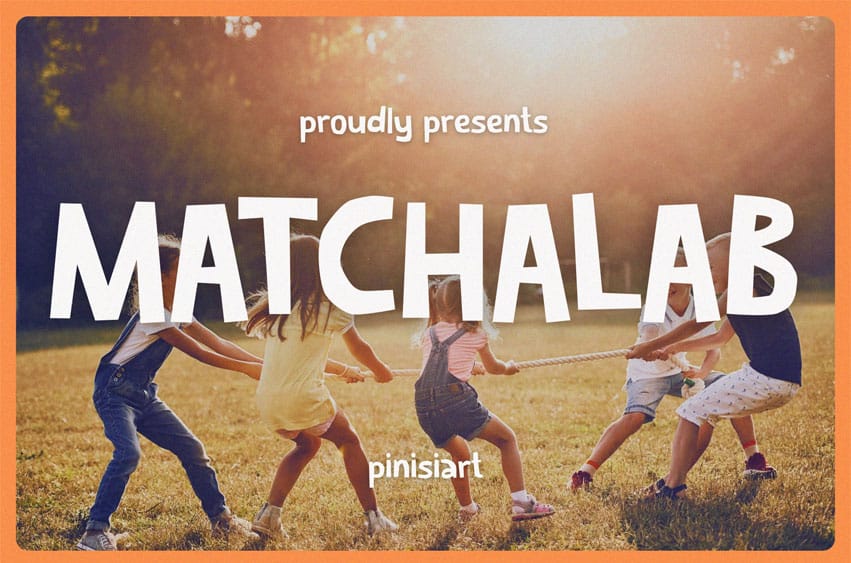
Matchalab Font is a playful handwritten display font designed to bring warmth and charm into your designs. With soft shapes, bouncy baselines, and organic curves, it feels alive, friendly, and approachable — like a perfect blend between creativity and comfort. The letters dance with a casual rhythm, making it ideal for Instagram posts, lifestyle branding, coffee shop menus, and kid-friendly visuals. Its natural, hand-drawn flow gives every project a personal touch that feels both authentic and joyful.
From cozy coffee branding to cheerful social media graphics or kids’ packaging, Matchalab makes every word smile. Its friendly tone builds emotional connection — perfect for creators, small business owners, and designers who want their visuals to feel genuine and inviting. Whether you’re designing a poster, vlog thumbnail, or playful product label, this font helps your message stand out with personality and warmth.
- Friendly Character Design: Soft, bouncy strokes that feel handwritten yet clean.
- Versatile Appeal: Works beautifully for logos, packaging, quotes, and social media.
- Natural Flow: Soft curves that add rhythm and approachability to any layout.
- Emotive Tone: Perfect for expressing creativity, joy, and authenticity in every project.
- Balanced Legibility: Easy to read in both headlines and short paragraphs.
Bring your designs to life with Matchalab — a font that radiates warmth and creativity in every curve. Whether you’re a designer, illustrator, or coffee lover building a brand, this typeface adds the personal, handcrafted charm that modern visuals crave. Add Matchalab to your collection today and start creating with personality, heart, and happy energy!